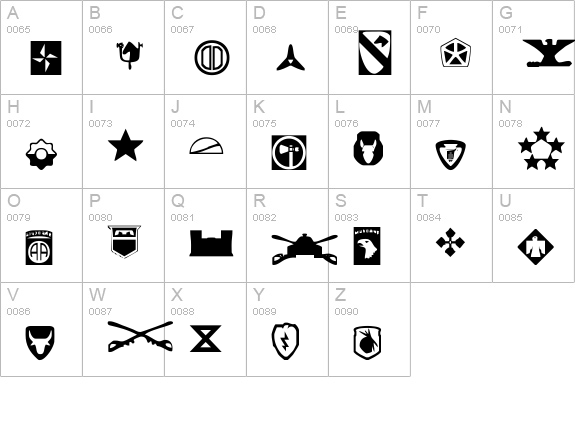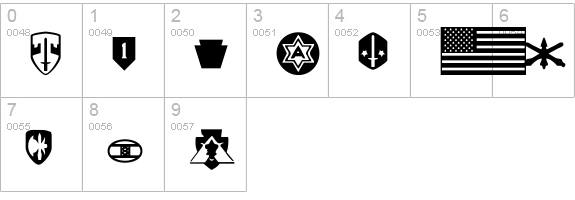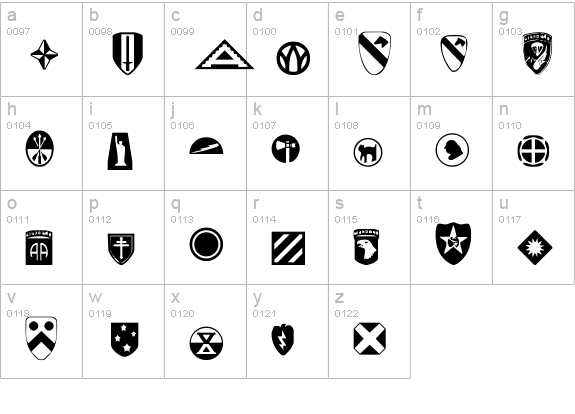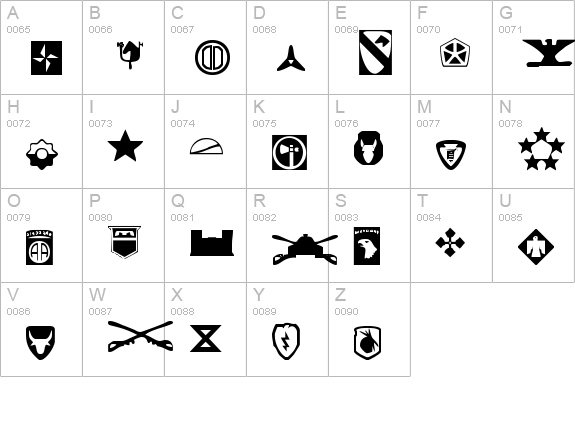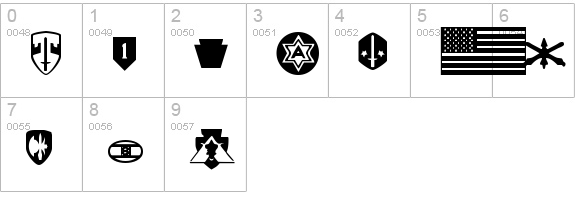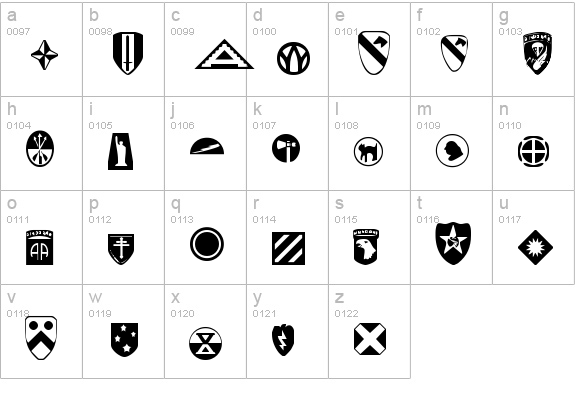
US Army Font Details
Introducing the US Army Font, a powerful and commanding typeface that exudes strength and patriotism. This font pays tribute to the brave men and women who serve in the United States Army, embodying their dedication, courage, and unwavering commitment to defending our nation. With its bold and striking design, the US Army Font captures the essence of military precision and authority. Each letter is meticulously crafted to convey a sense of discipline and professionalism, making it perfect for a wide range of applications, including military-themed designs, patriotic campaigns, and impactful headlines. But what sets the US Army Font apart is its accessibility. We are proud to offer this font for free, allowing designers, creatives, and enthusiasts from all walks of life to incorporate its powerful presence into their projects. As a testament to our support for our armed forces, we believe that this font should be freely available to all, allowing everyone to express their appreciation and respect for the military. To download the US Army Font, simply visit FontsMarket.com, the go-to platform for high-quality and diverse font collections. We understand the importance of accessibility and convenience, which is why we have made it our mission to provide you with the tools you need to bring your vision to life. Download the US Army Font today and unleash the strength and spirit of the military in your designs.